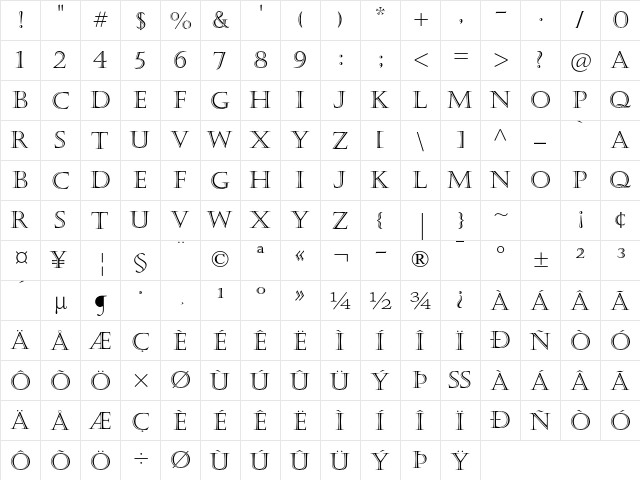
Castellar MT Std Regular
| Designer | John Peters |
Design Context for Castellar MT Std Typeface
Castellar MT Std offers clean, dependable letterforms without strong stylistic allegiance, making it a practical choice for designers who need flexibility.
Pro Tip: Pair Castellar MT Std with a font of contrasting weight or personality to build a more expressive typographic hierarchy.